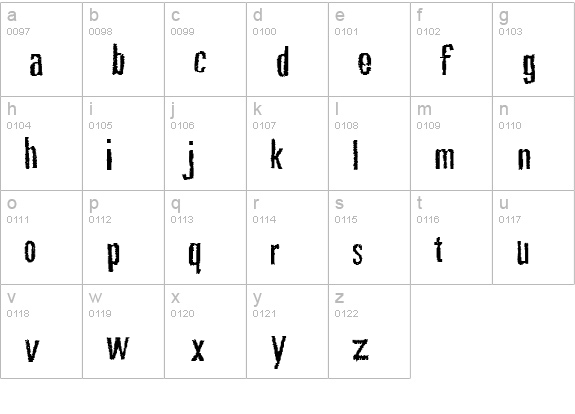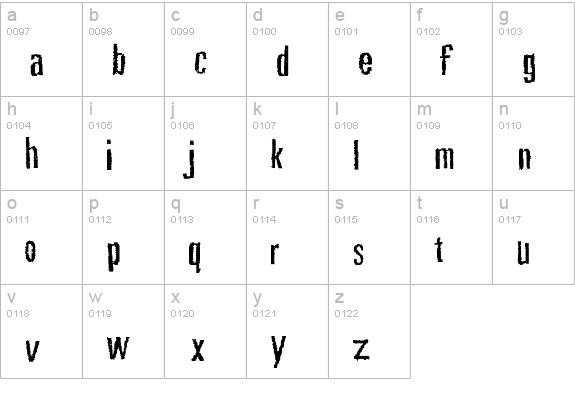
Rubbing Font is a versatile and stylish typeface that brings a touch of elegance to any design project. This unique font features a hand-drawn appearance with rough edges, giving it a distinct and artistic feel. Perfect for adding a personal touch to invitations, logos, posters, and more, Rubbing Font is sure to make your designs stand out. Best of all, Rubbing Font is completely free to use! You can easily download this font at FontsMarket.com and start incorporating its charm into your creative projects right away. Don't miss out on the opportunity to enhance your designs with the beautiful and free Rubbing Font.